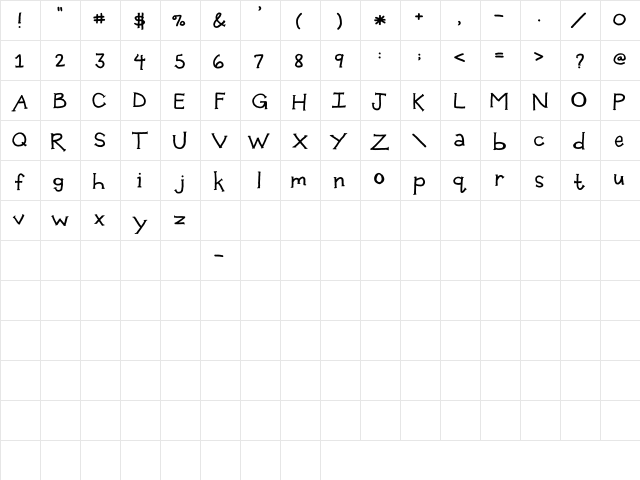
2Peas Tuxedo 2Peas Tuxedo Font Preview
Design Context for 2Peas Tuxedo Typeface
2Peas Tuxedo is a composed and adaptable typeface that performs quietly and consistently across a wide range of design contexts.